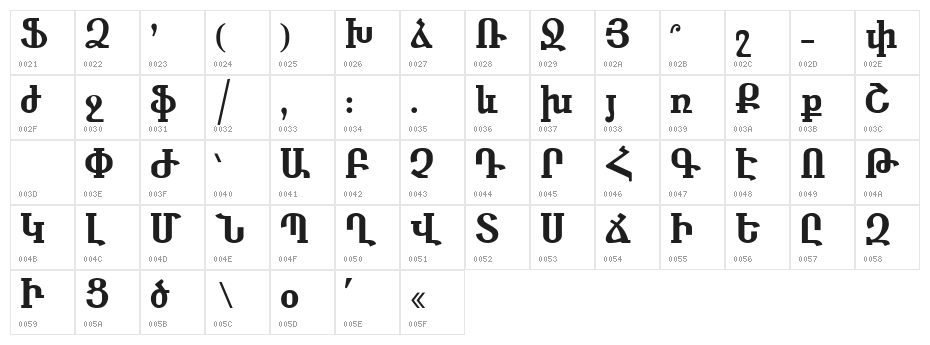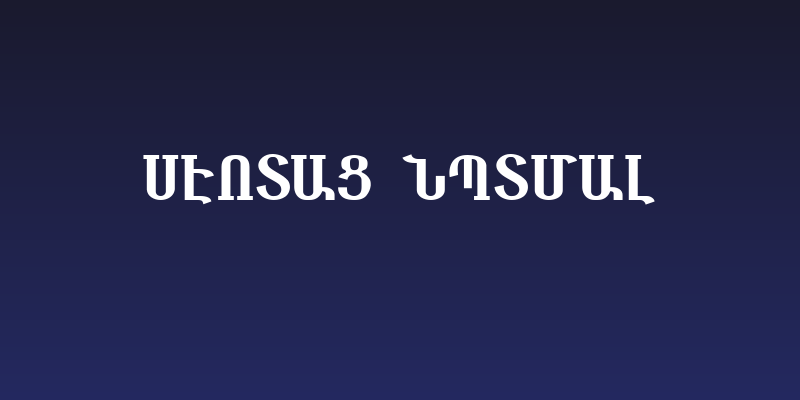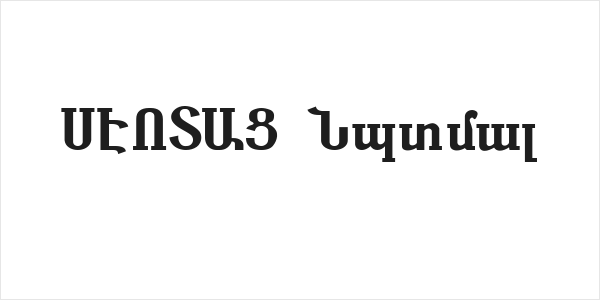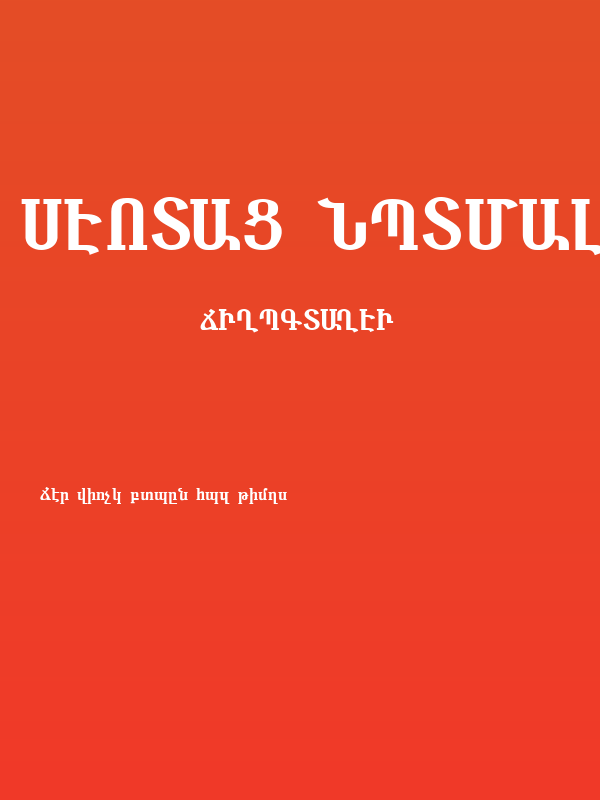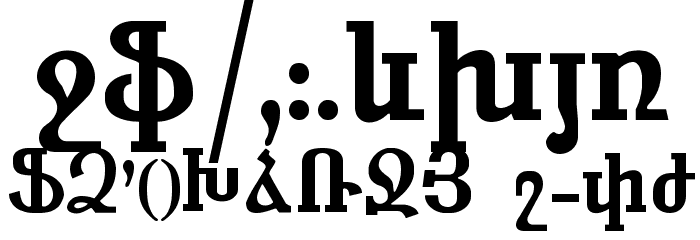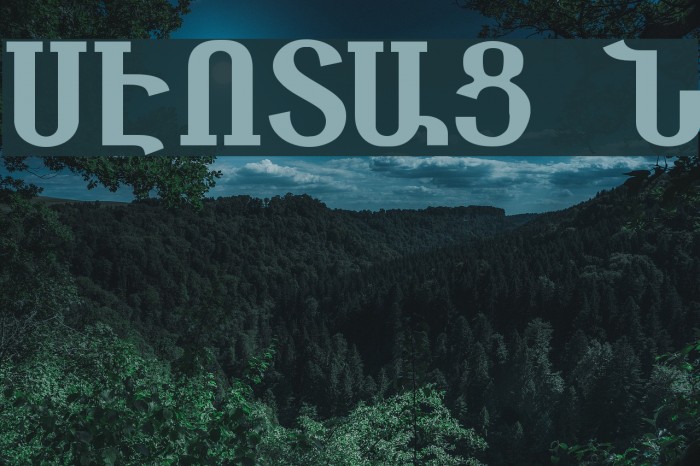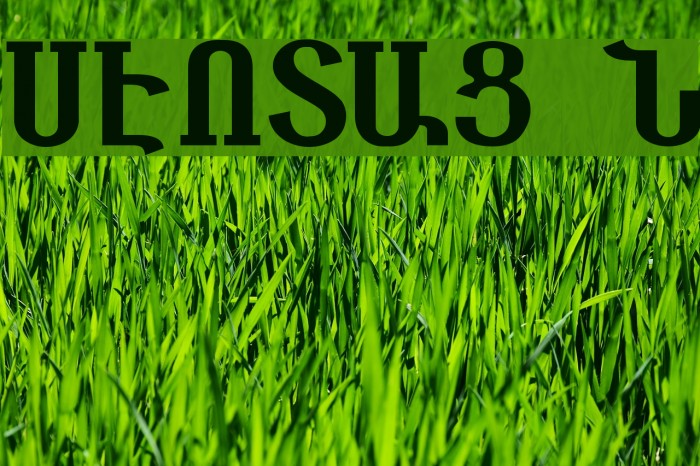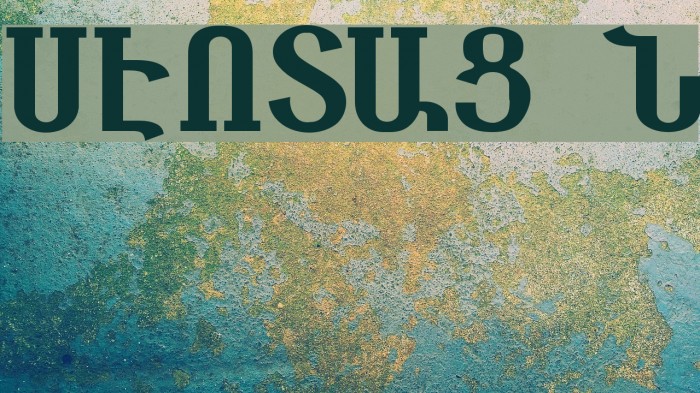
SHIRAZ Normal Font
SHIRAZ Normal Description
This font features a unique blend of traditional and modern elements, characterized by its bold and structured appearance. The letters exhibit a strong presence with thick strokes and sharp serifs, giving it a commanding and authoritative look. The design incorporates a high contrast between thick and thin lines, enhancing readability while maintaining a decorative flair. The characters are well-spaced, providing a balanced and harmonious visual flow. This font is particularly suitable for projects that require a touch of elegance and sophistication, such as branding, editorial design, and signage.